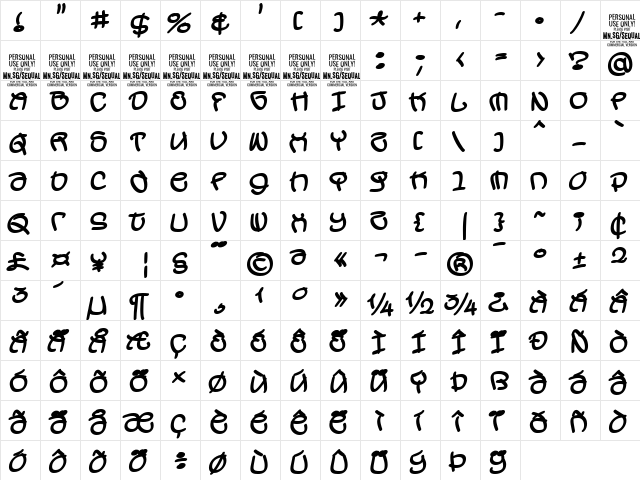
Sequal Regular PERSONAL USE Regular
| Foundry | Mans Greback |
| Designer | Mans Greback |
Design Context for Sequal Regular PERSONAL USE Typeface
Sequal Regular PERSONAL USE is a composed and adaptable typeface that performs quietly and consistently across a wide range of design contexts.